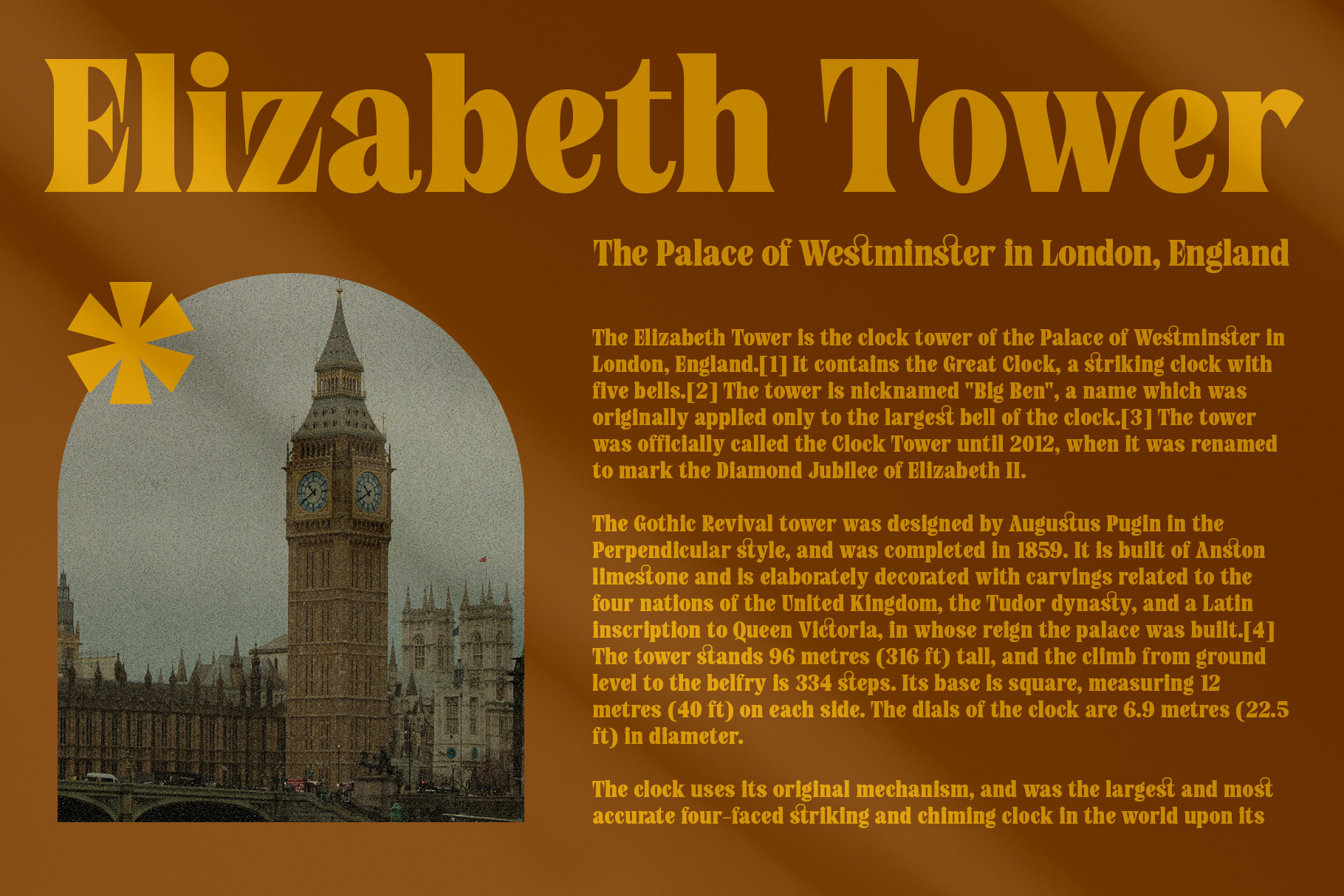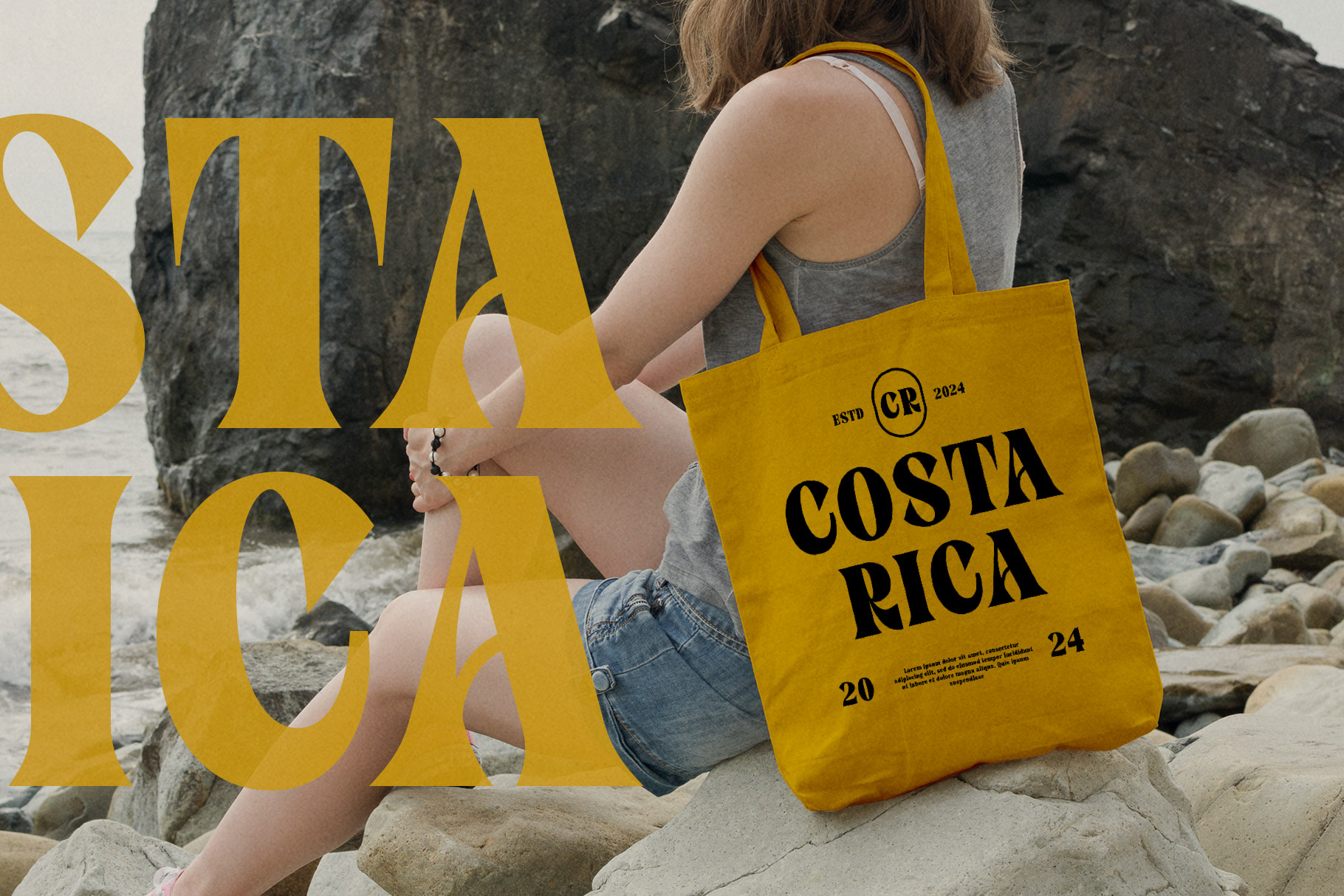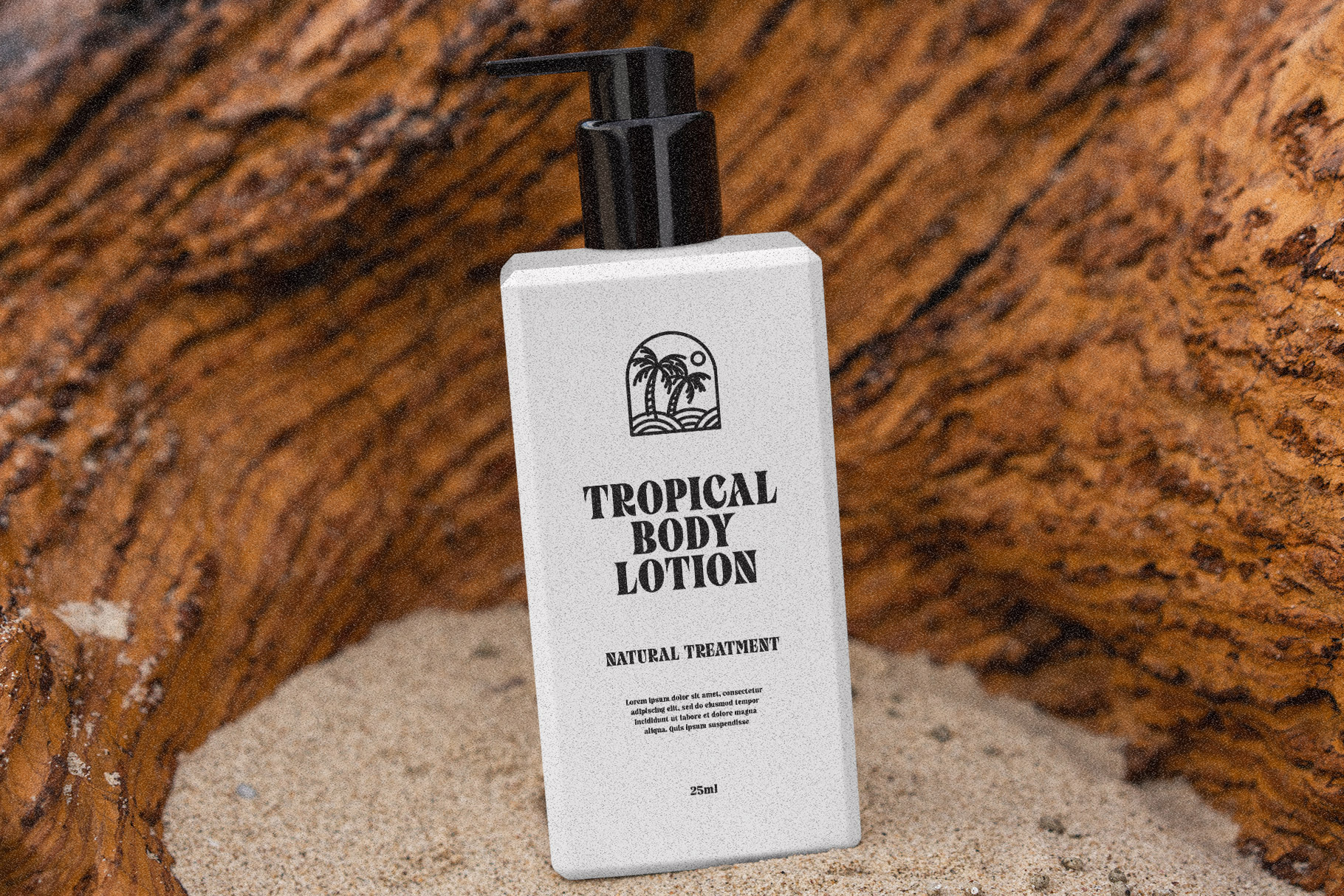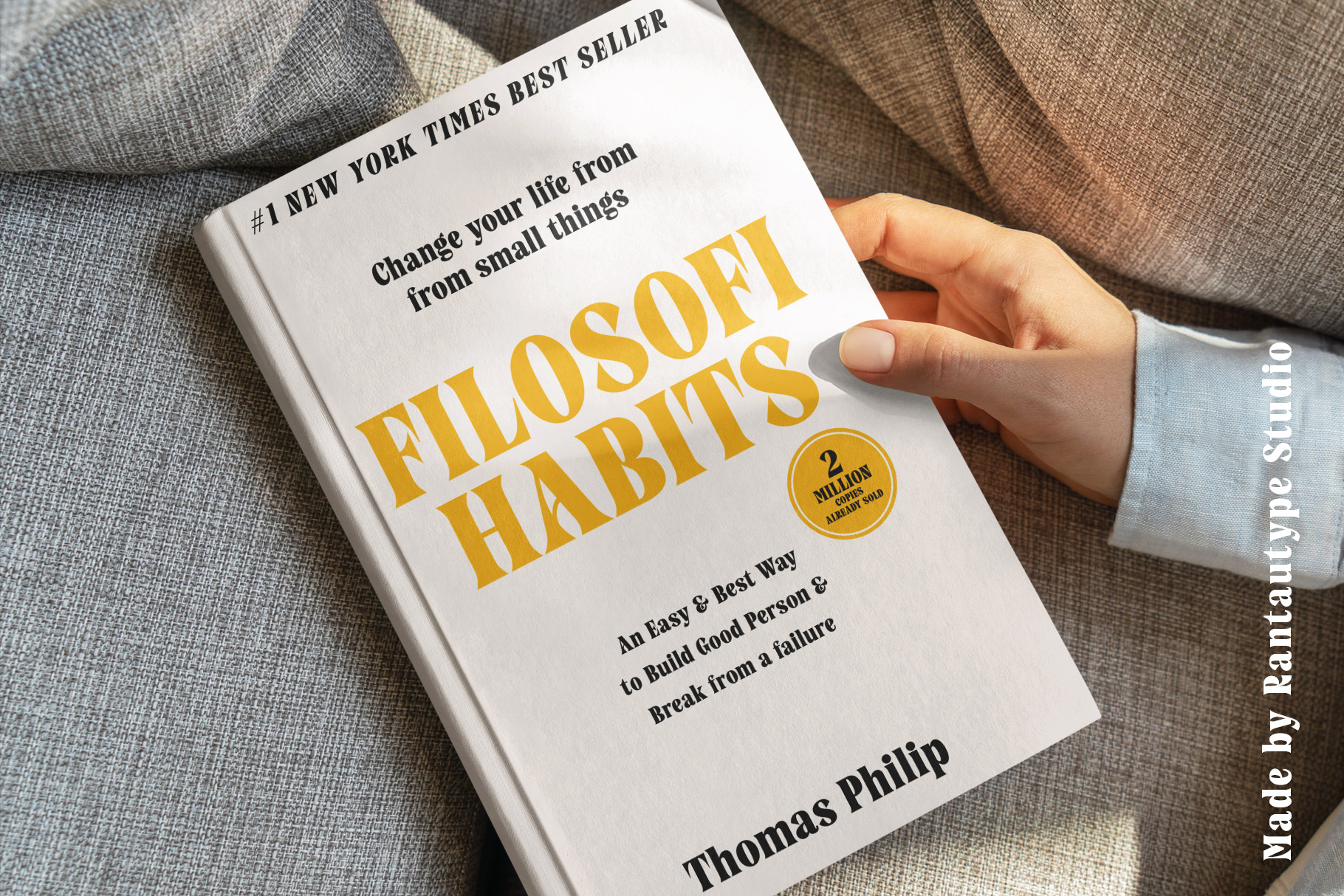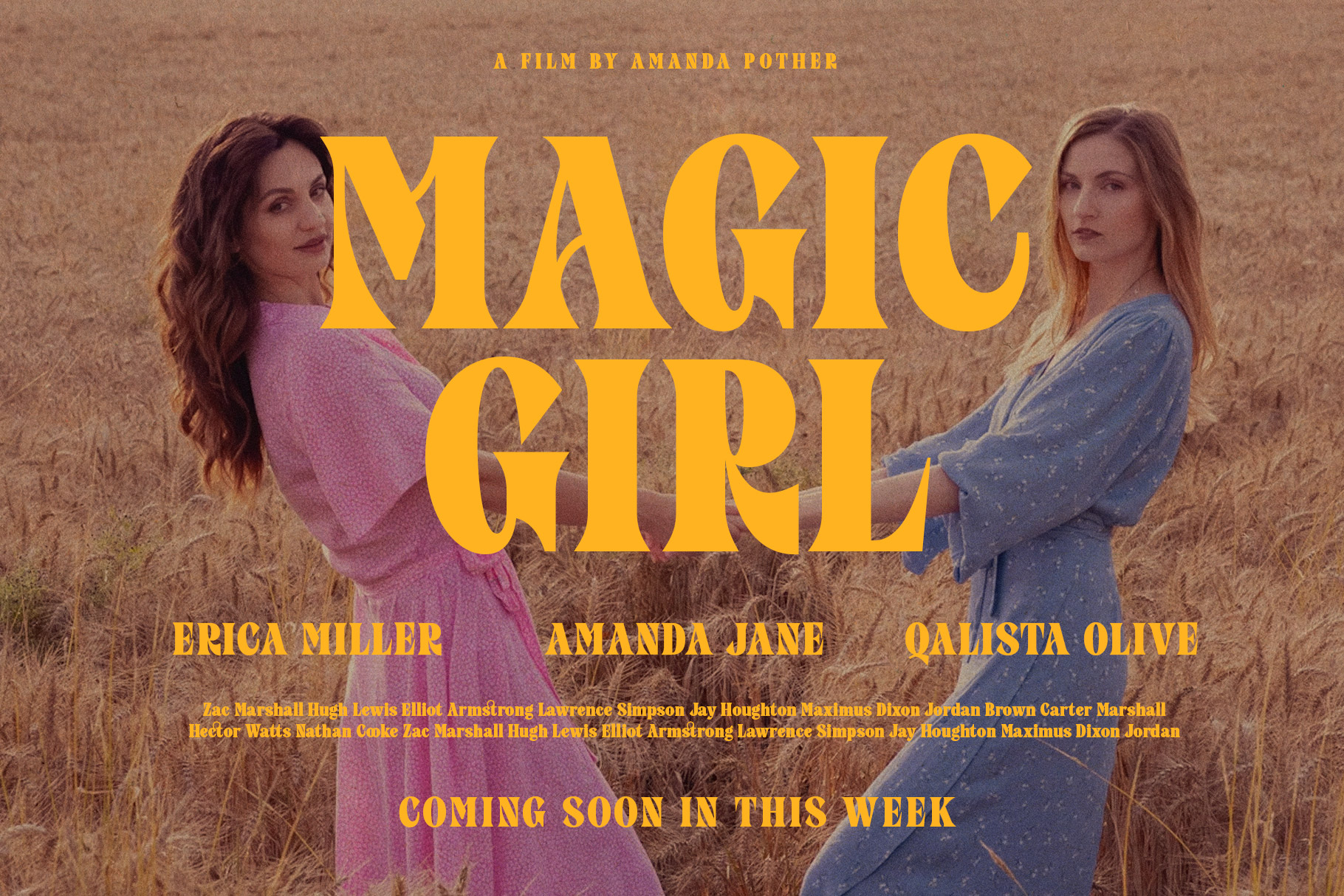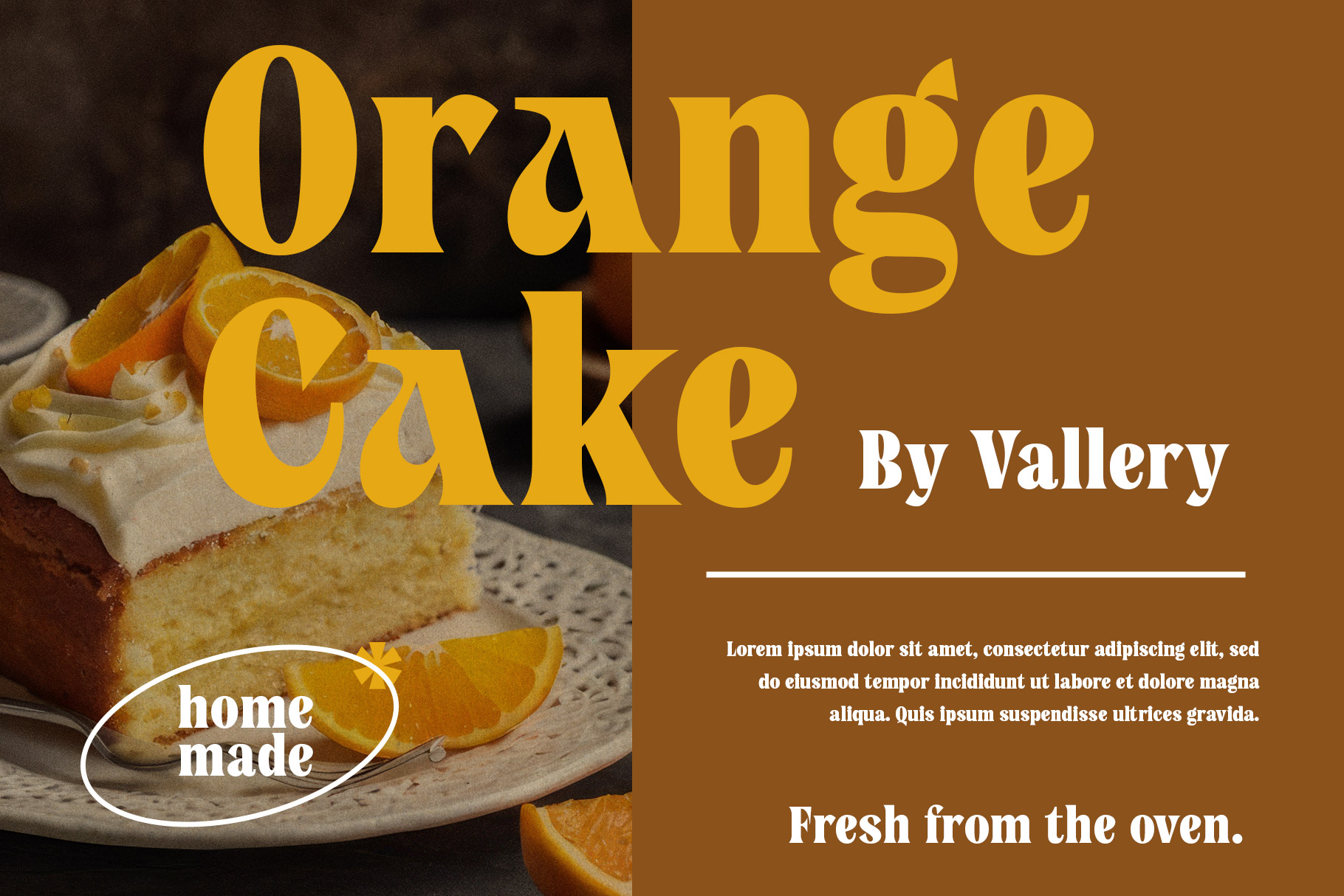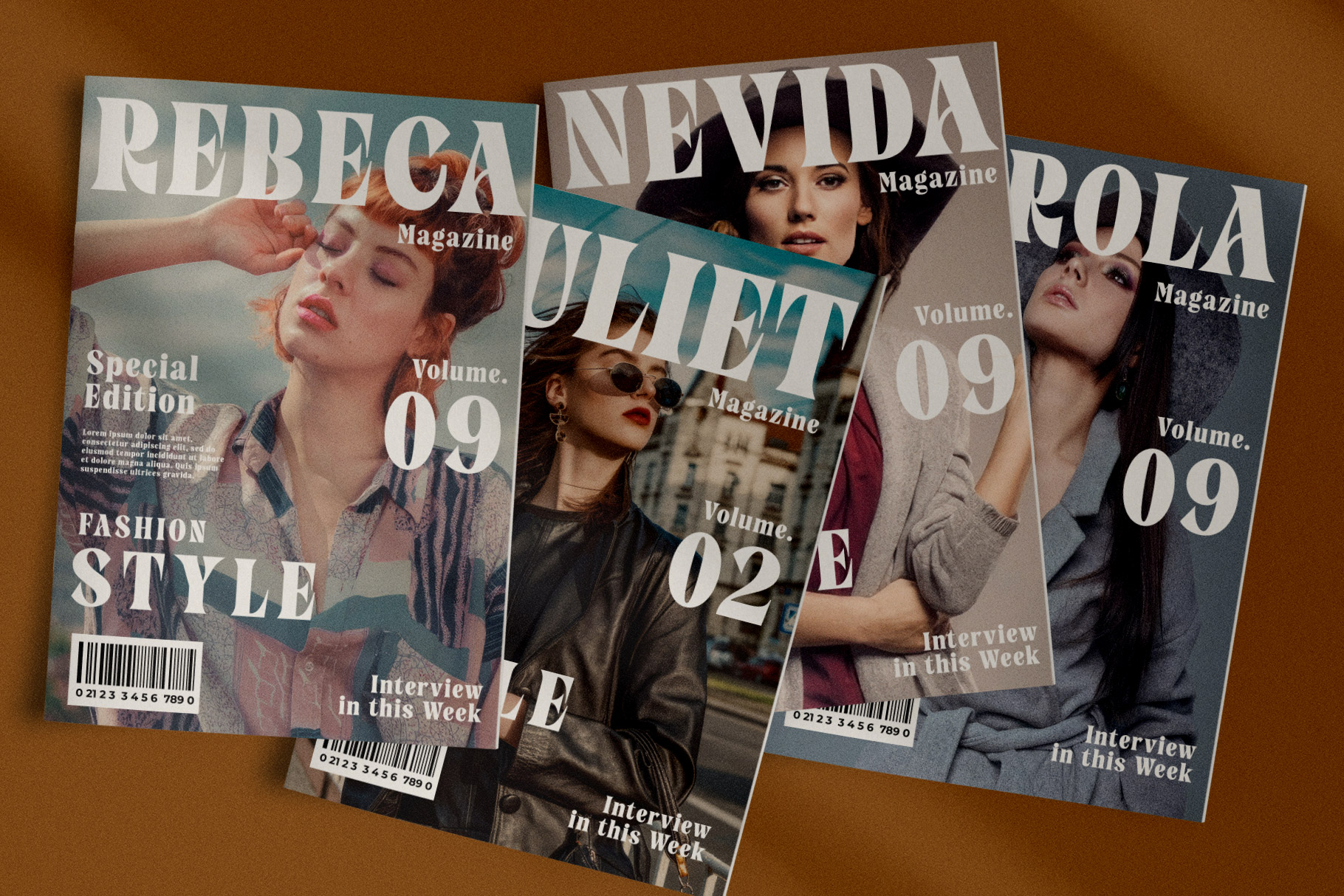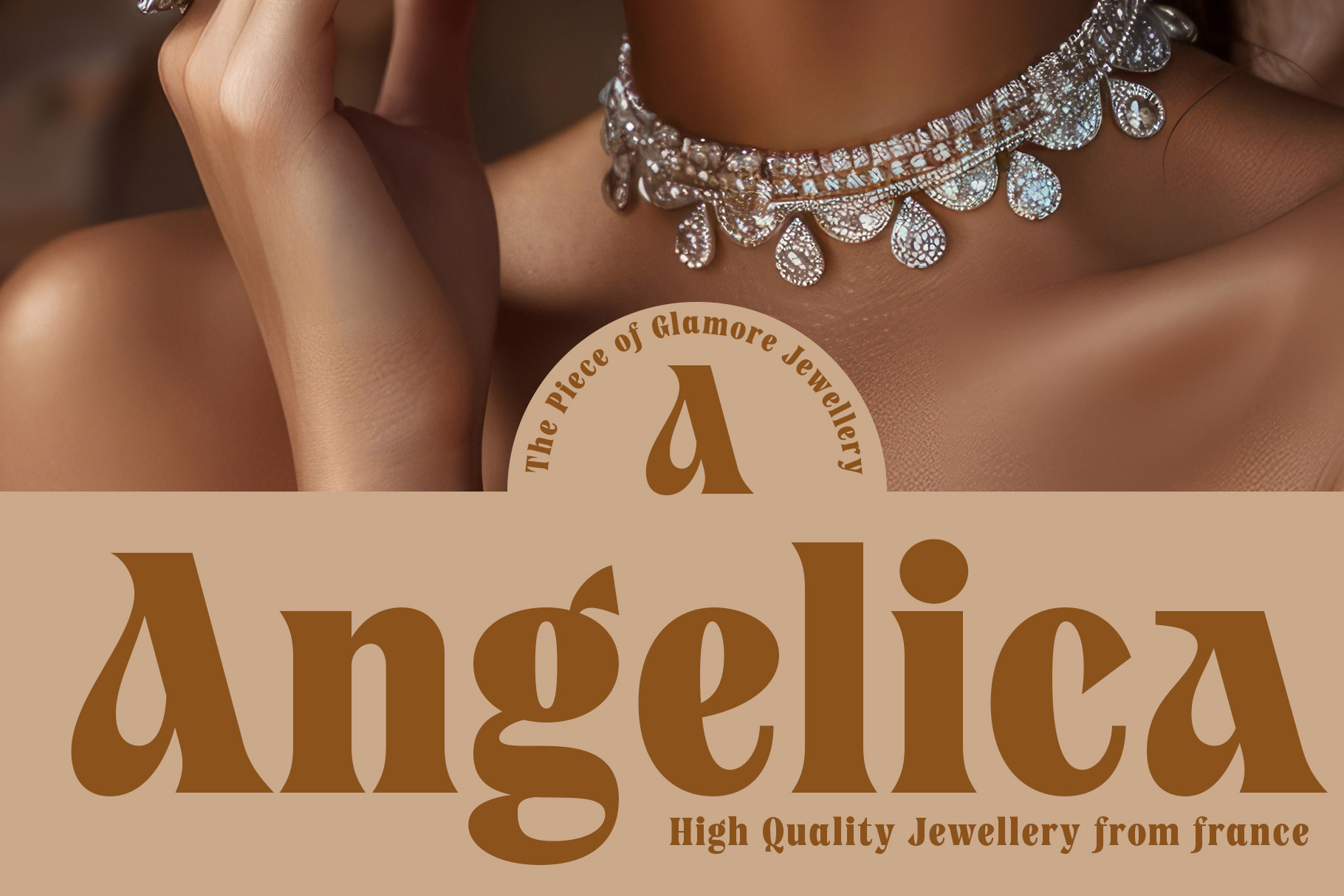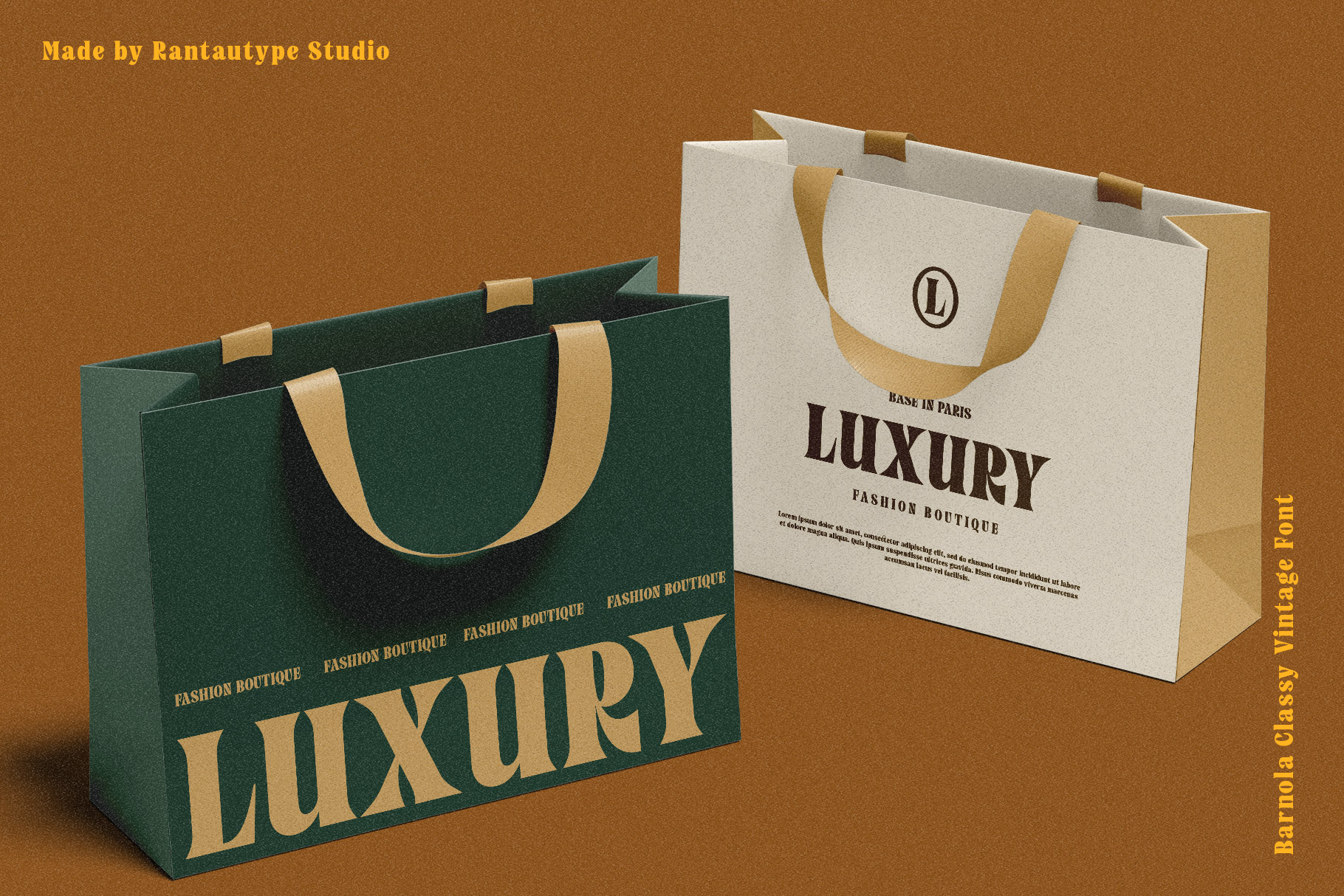
Barnola Classy Vintage Font
Barnola is classy font with old vintage look inspire by eighties magazine. Barnola bring contrast condensed display with bold stroke and old-fashioned character it make your design project nostalgic sanse.
Barnola is a perfectly choice for any creative endeavor, chic, lifestyle design such as logos, advertisements, stationery, branding project, display and magazine, invitation, corporate brand, product design, label, business project and many other project with vintage nostalgic touch.